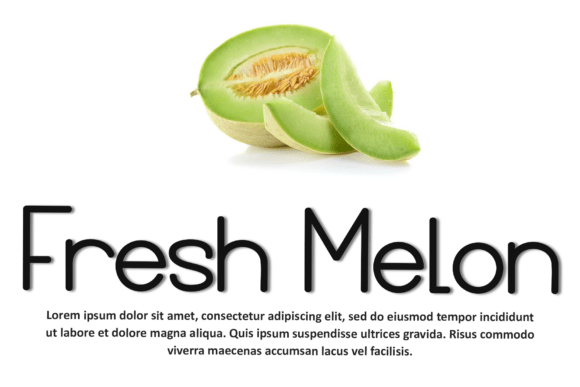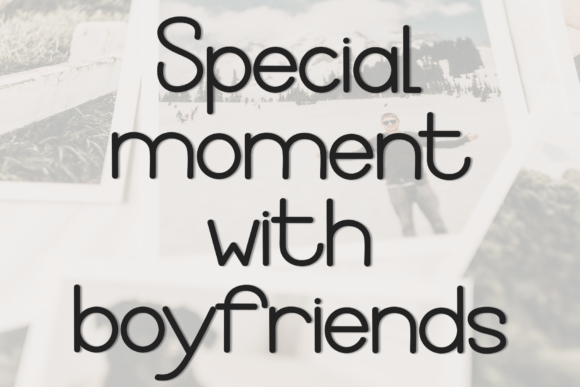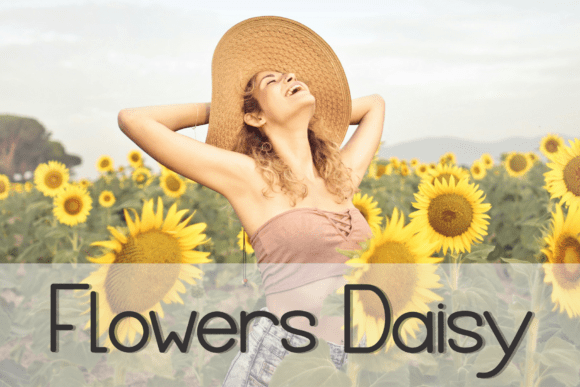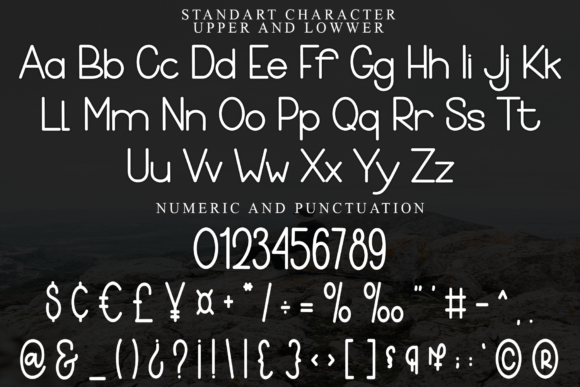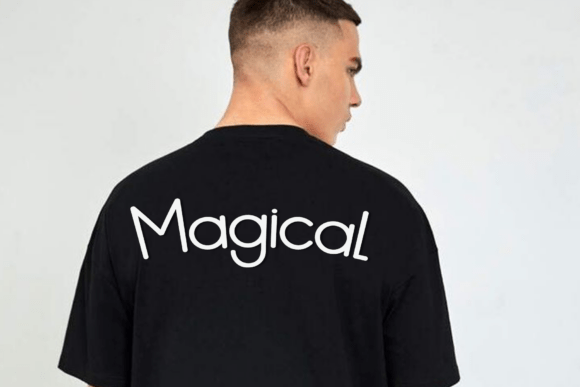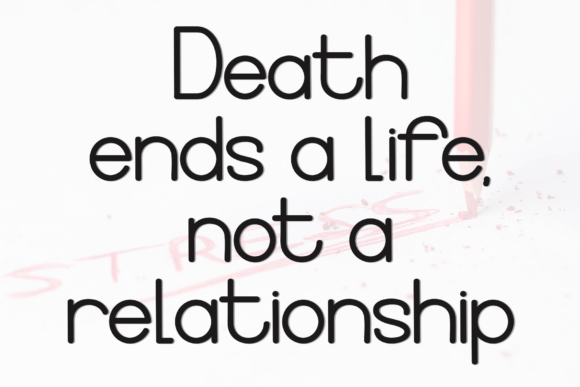
The Magic of Typography: Unlocking the Spirit of the Holiday Season
There’s nothing quite like the feeling of brainstorming a new project, surrounded by scribbled notes, color swatches, and a blank page waiting to be filled with creativity. It’s in these moments that the perfect font can make all the difference, transporting your design from ordinary to extraordinary. For many designers, the holiday season is a time to get creative and express the festive spirit through their work.
That’s where the Designer Font comes in – a festive and merry typeface that captures the essence of the holiday season. With its decorative elements and whimsical flair, this font adds a touch of enchantment to any design. Perfect for greeting cards, gift tags, and holiday-themed projects, the Designer Font brings a cheerful and nostalgic ambiance to your words.
As a designer, you know the value of a font that can elevate your work and make it truly special. With its PUA encoding, the Designer Font is incredibly versatile, allowing you to access all of its amazing glyphs and ligatures with ease. Whether you’re creating a holiday card or a festive brochure, the Designer Font is sure to bring a touch of magic to your typography.
Key Features of Designer Font
- Unique Characteristics: Features advanced typographic features, including ligatures, swashes, and contextual alternates, to enhance design sophistication.
Designer Font Review
Overall, I have mixed feelings about the “Designer Font” I recently worked with. ✨ There are some aspects that shine, but others that leave room for improvement.
- ✨ The font’s versatility is impressive. It can be used for both modern and traditional designs, making it a great choice for various projects.
- ✨ The font’s legibility is excellent, even at smaller sizes, which is a must for any good font.
- ✨ The font’s range of weights and styles is extensive, allowing for a lot of creative freedom.
- ⚠️ The font’s open-type features can be a bit buggy at times, causing issues with kerning and ligatures.
- ⚠️ Some of the font’s more ornate styles can be overwhelming and difficult to read in certain contexts.
Overall, while the “Designer Font” has its strengths, its limitations hold it back from being a truly exceptional font. With some refinement and attention to its weaknesses, it could be a top contender in the design world.